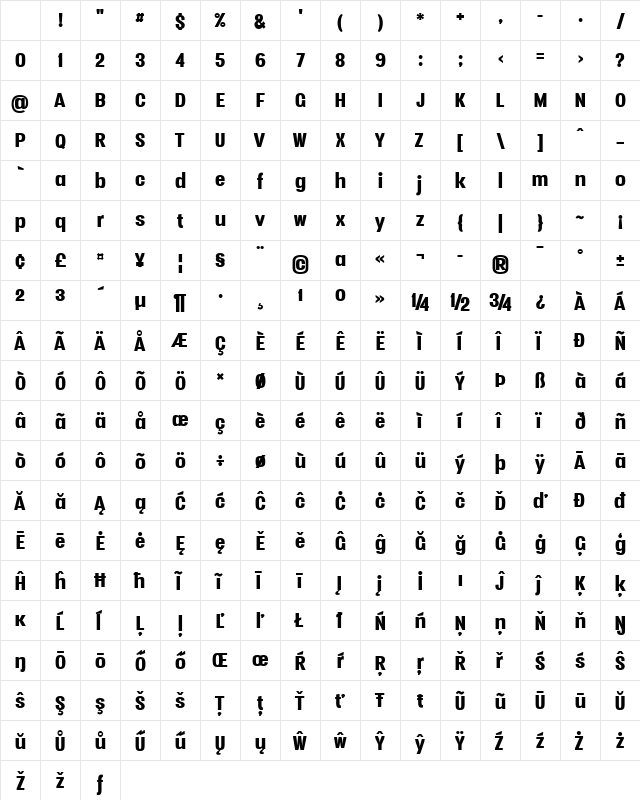
Complete Vacer Sans Personal Black glyph index. Displaying only characters natively supported by Vacer Sans Personal Black font.
Vacer Sans Personal is a composed and adaptable typeface that performs quietly and consistently across a wide range of design contexts.
Pro Tip: Use Vacer Sans Personal in both headline and body roles to test its range before committing to a single application.